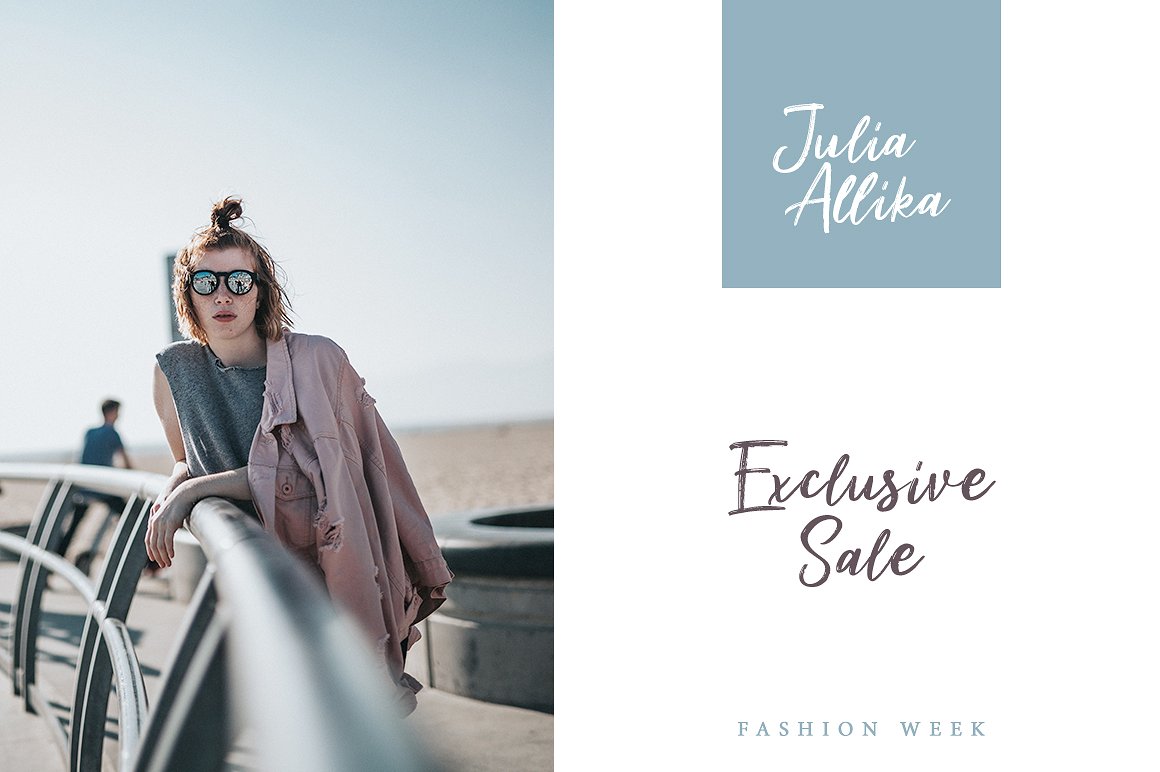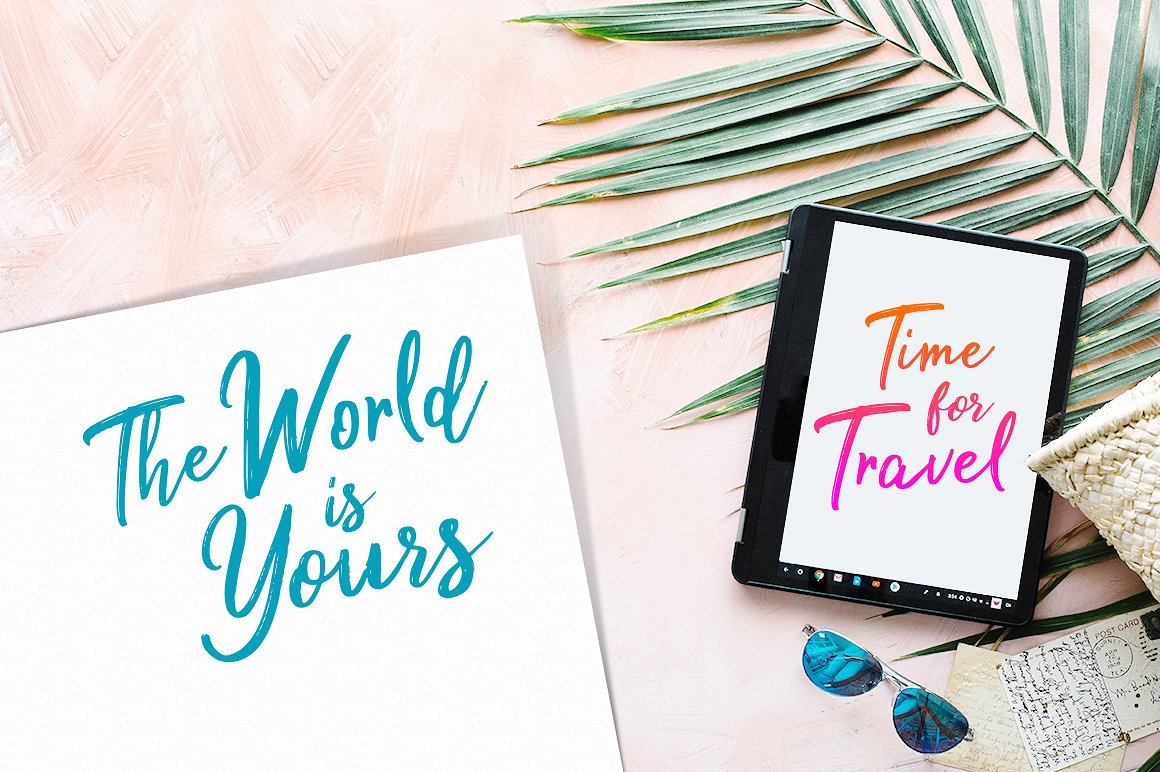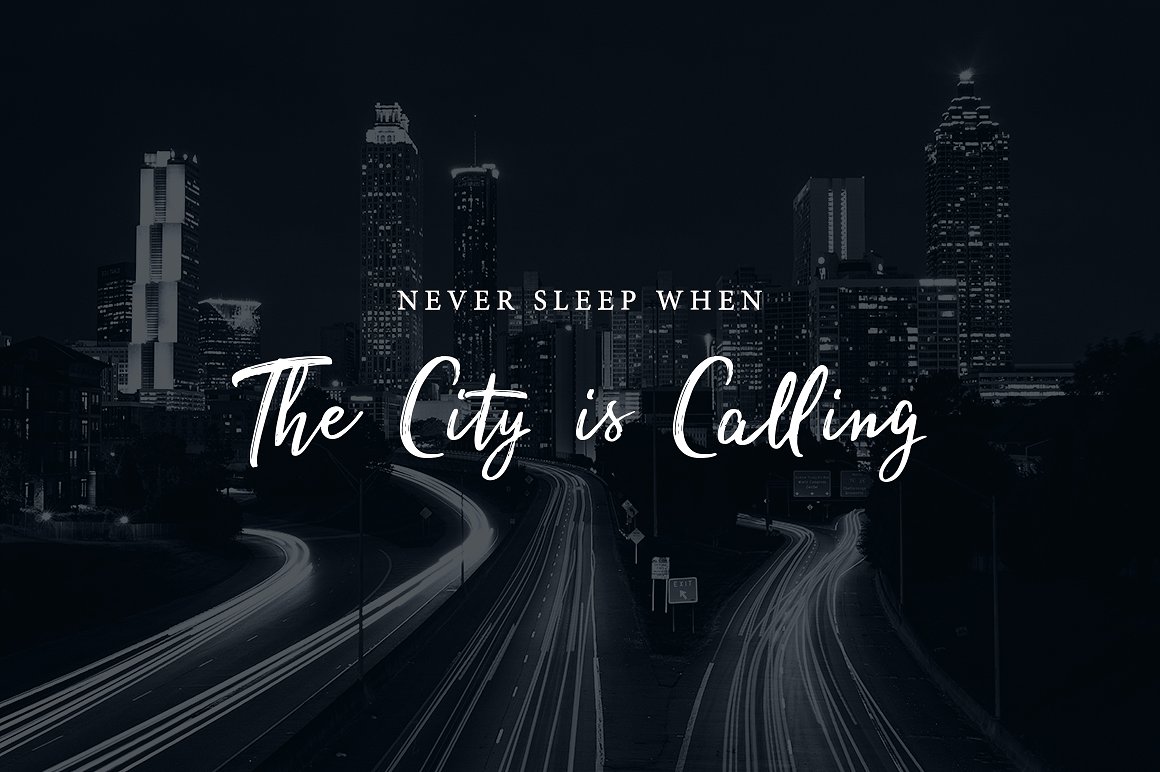
Milea Brush Font Duo
Start your day with a romantic and beautiful brush typeface. Introducing Milea Font! Milea designed and shared by Weape Design. Milea – script with a natural dry brush strokes make it beautiful, and the stroke of hand quickly. Milea is perfect for signature, branding, wedding, fashion, photography title, poster, social media, ad banner, book cover, packaging, handwritten quotes, greeting cards and advertising.